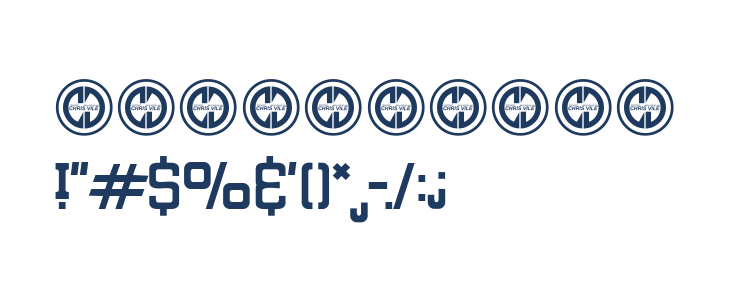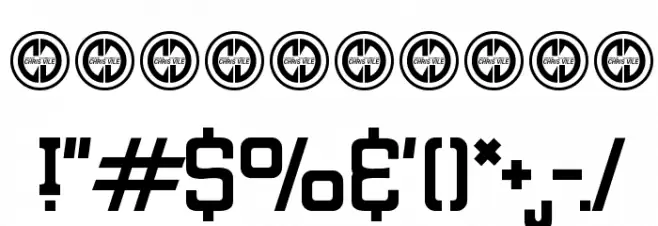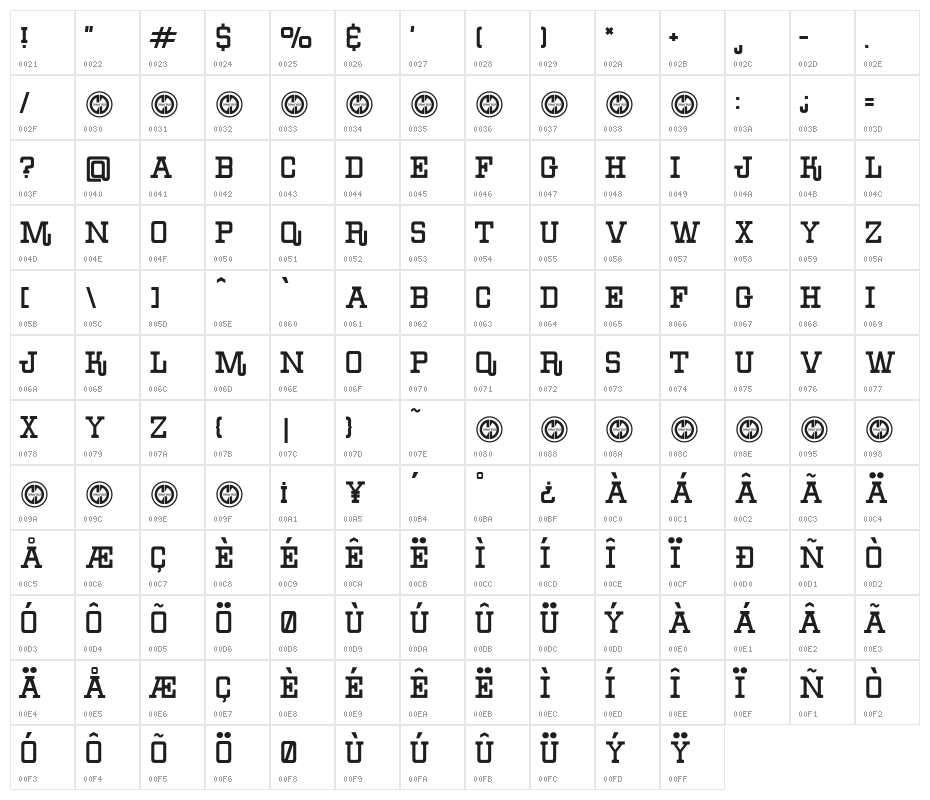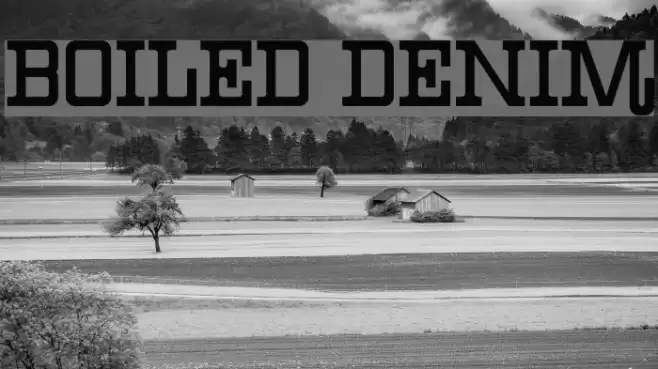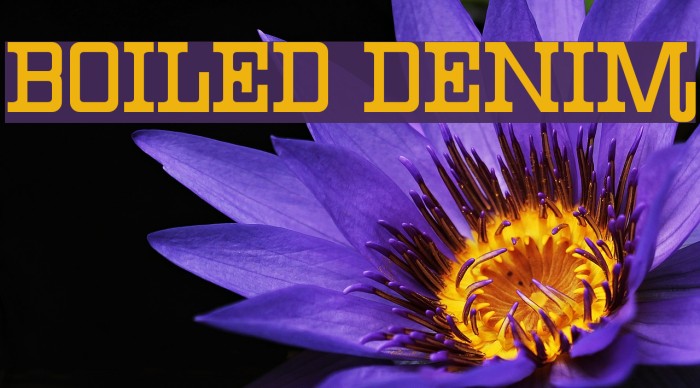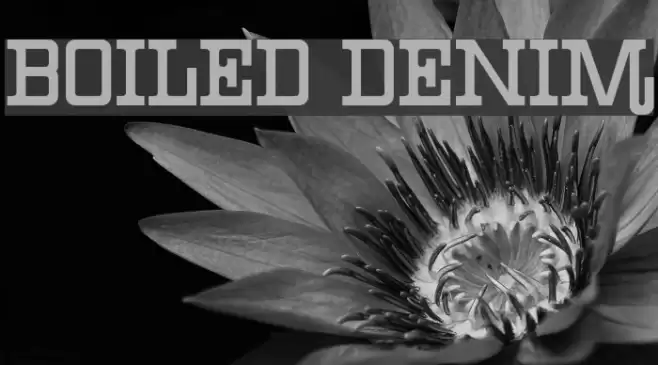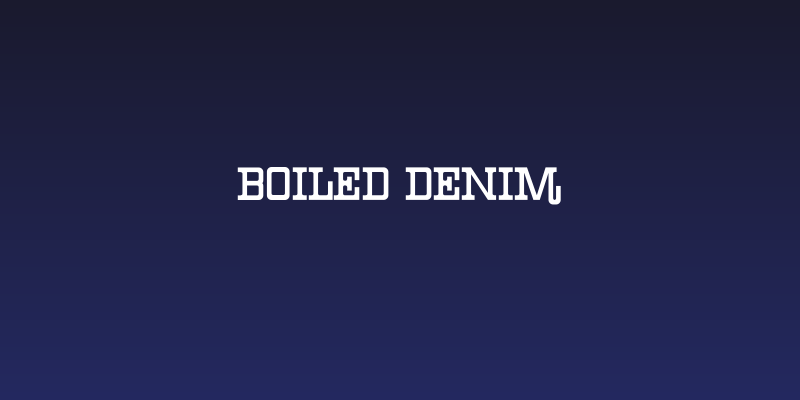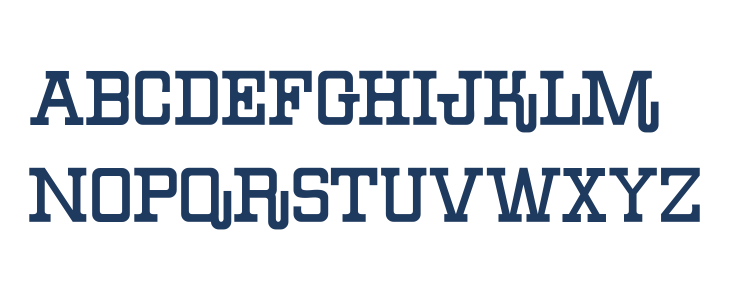
Boiled Denim Font
Boiled Denim Description
This font features a bold and robust design with strong geometric elements. The characters are constructed with thick, consistent strokes that give it a sturdy and industrial feel. The serifs are pronounced and squared, adding to its bold appearance. The overall design is reminiscent of vintage typefaces used in industrial and mechanical settings, making it ideal for projects that require a strong, impactful presence. The uppercase letters are uniform in height, while the lowercase letters maintain a consistent baseline, ensuring readability. The numbers and special characters are designed to match the boldness of the alphabet, making them suitable for attention-grabbing headlines and signage.
| Use Case | Headlines, Logos, Signage |
| Proposed Projects | Ideal for branding, signage, posters, and any project requiring a bold, industrial aesthetic. |